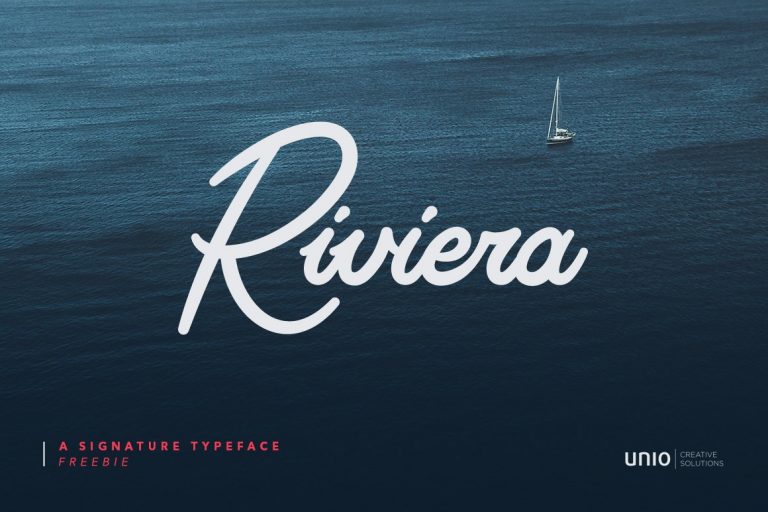
Riviera Signature Font
A signature milli pen font with classy handwriting style. Introducing Riviera Font! It is designed by Unio | Creative Solutions. “Riviera” – a modern and elegant signature font that has been crafted with gentle curves and sophisticated strokes. This fancy mono weight calligraphy font has been attentively designed to look as close to a natural handwritten script and it is undoubtedly ideal for any e-commerce brand, blog, social feed or any modern business that wants to appear distinctively. Use it indistinctly for adding a unique touch to any branding project!